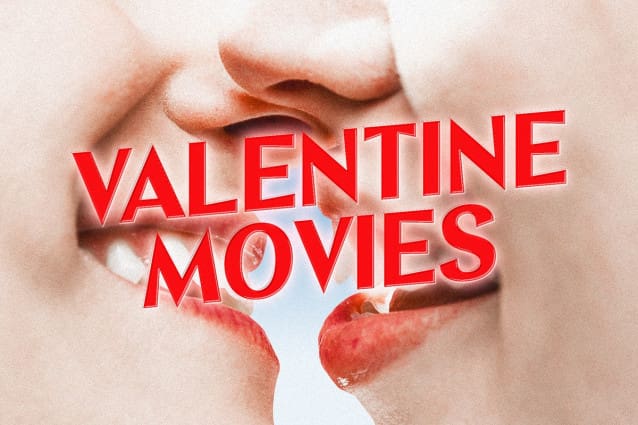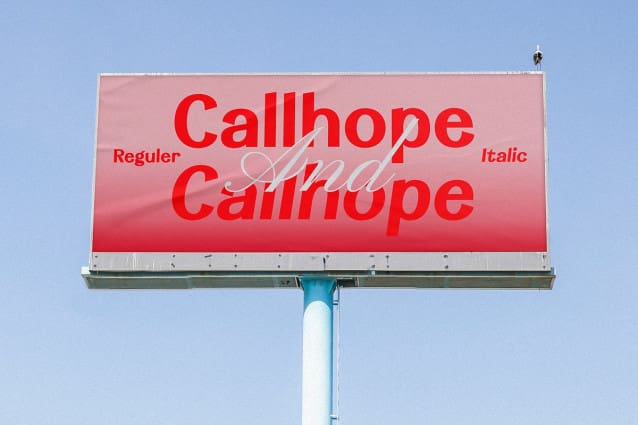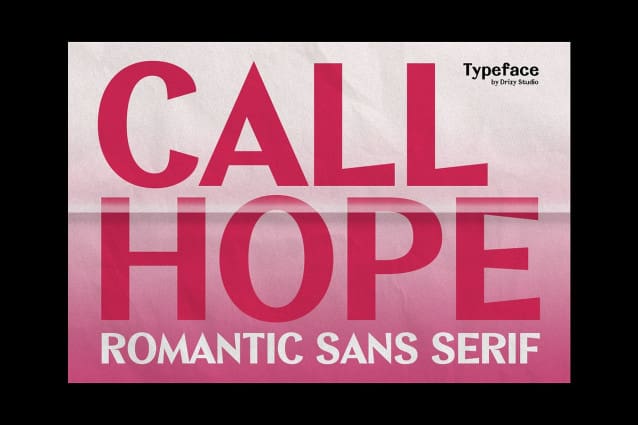
Callhope Font
Callhope Font – Romantic Sans Serif Font.  Elevate your designs with the enchanting allure of Callhope, a meticulously crafted sans serif font designed to infuse romance into your visual creations. Whether you’re working on wedding invitations, love notes, or any project that demands a touch of sophistication, Callhope is the perfect typographic choice for Romance and Valentines Movie Theme.